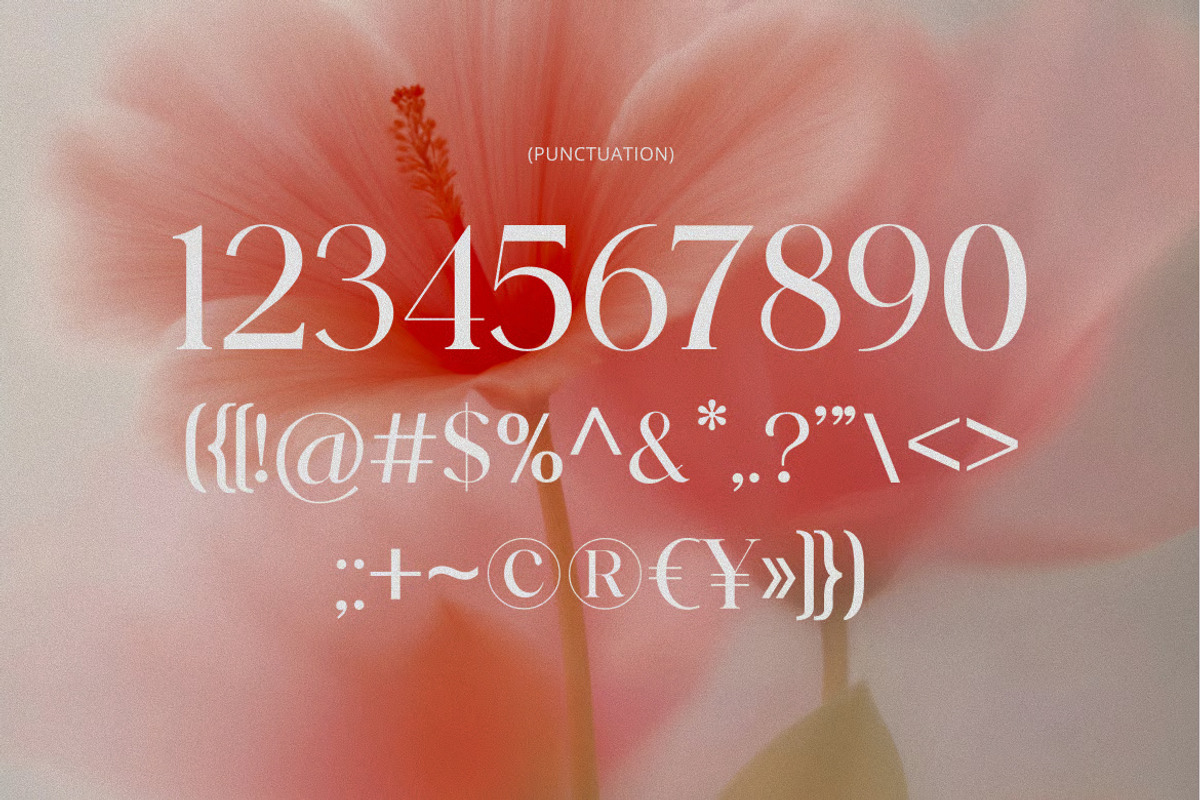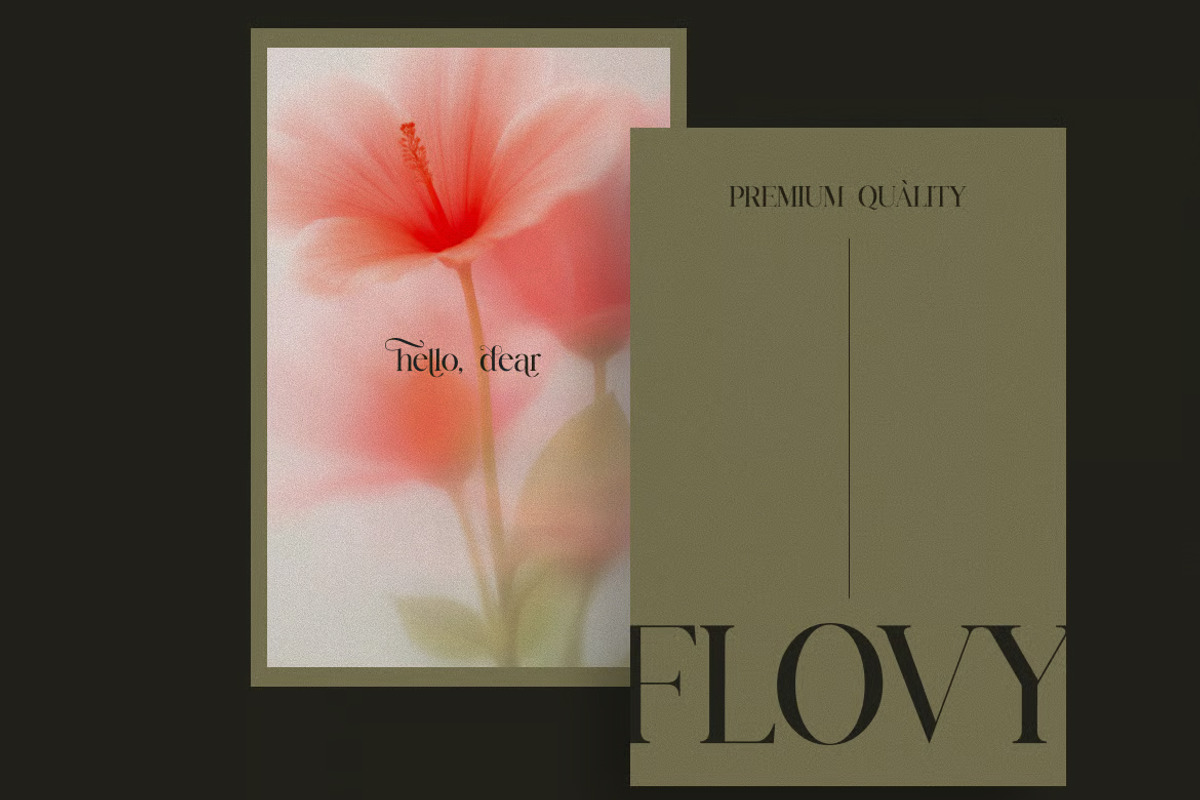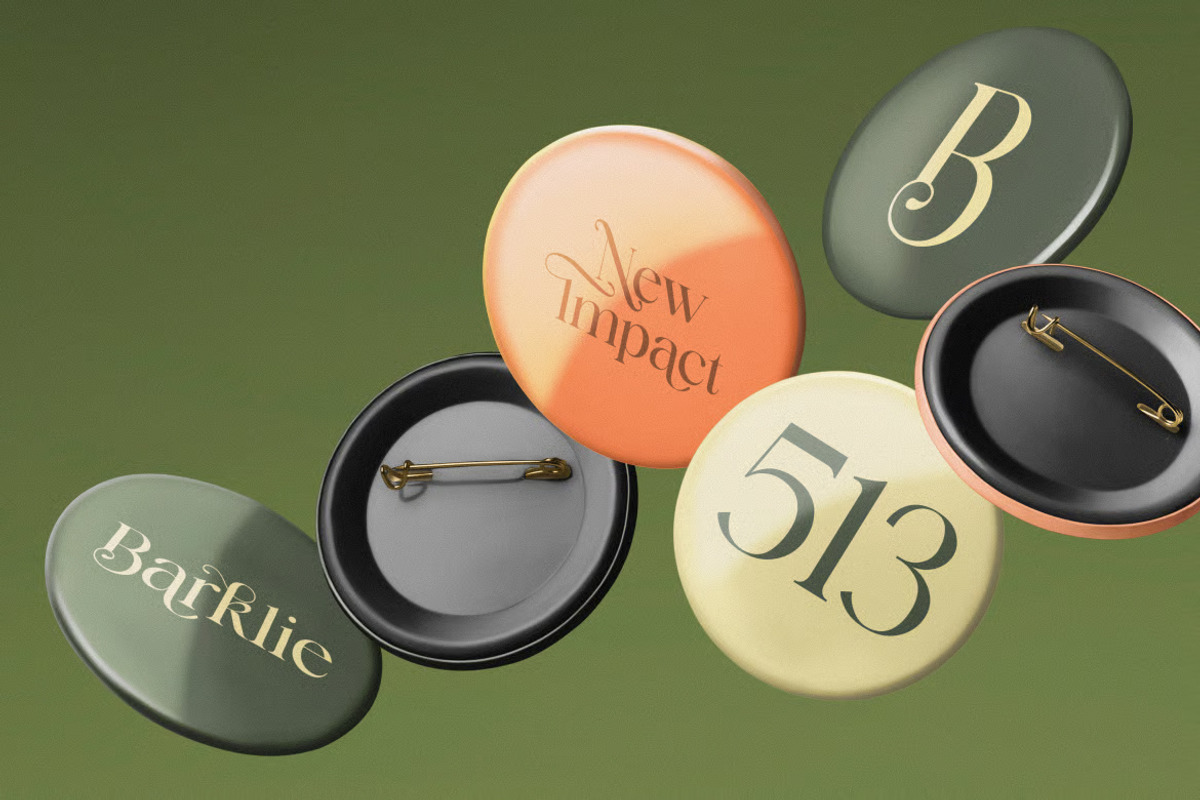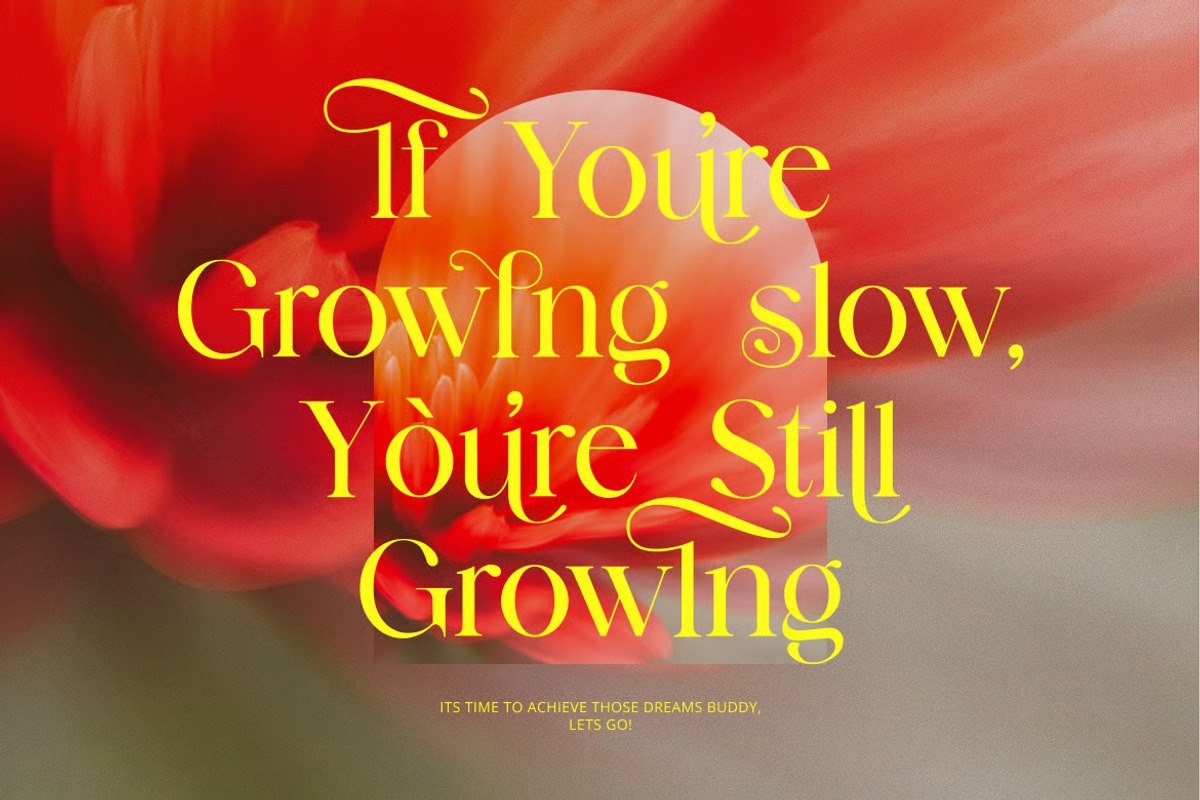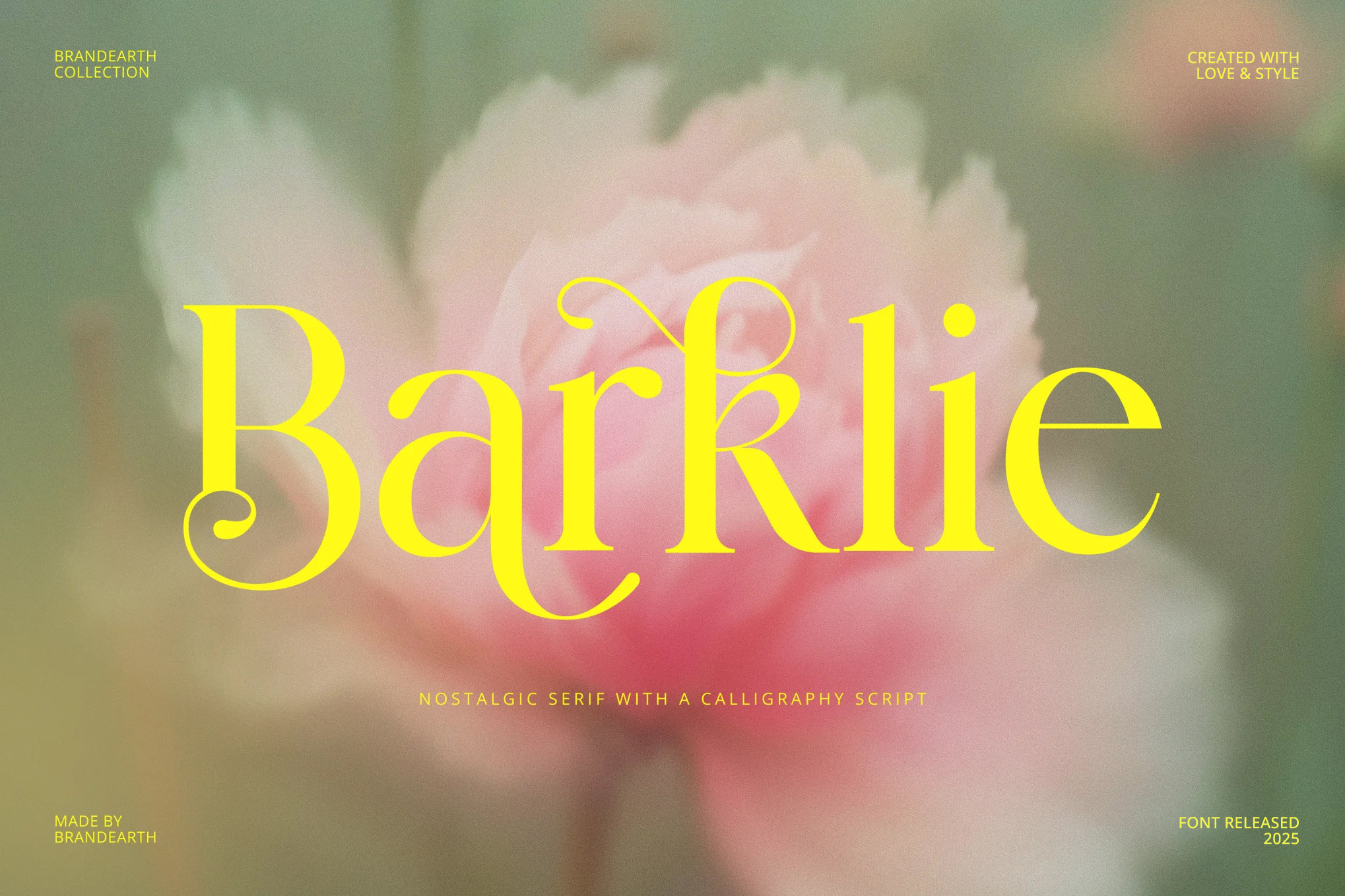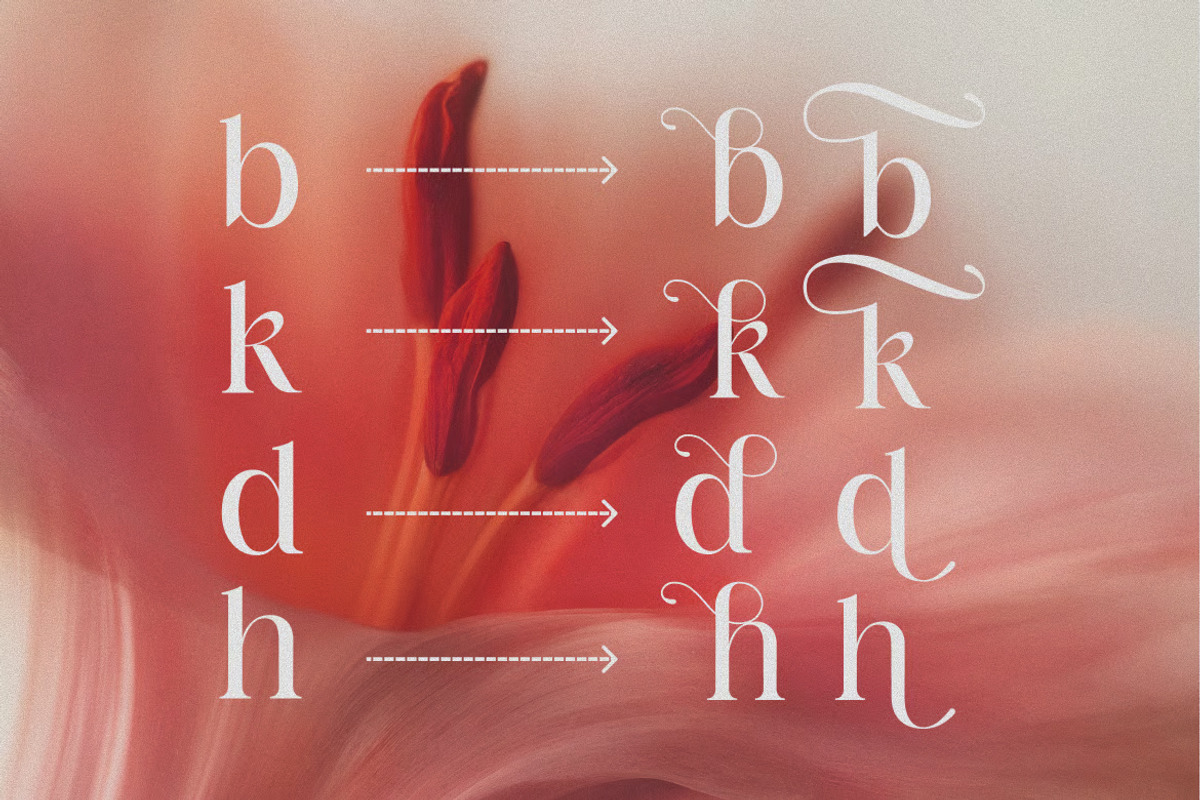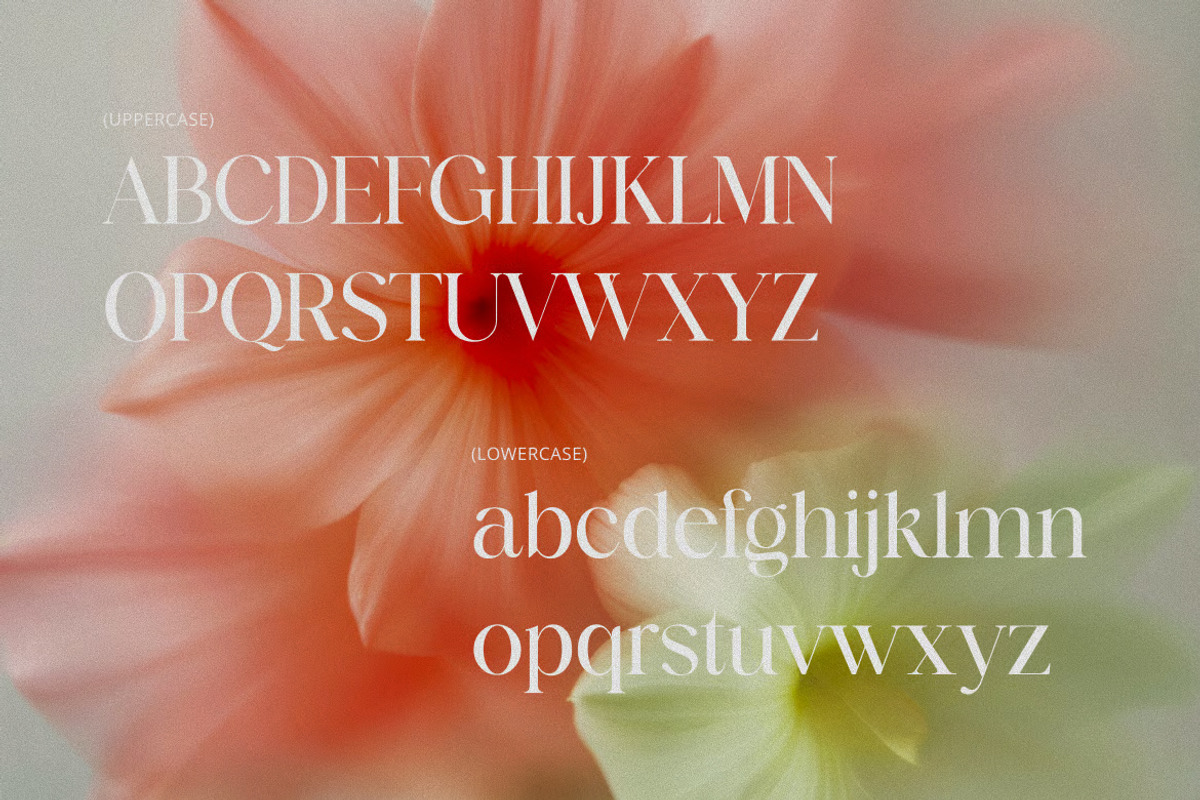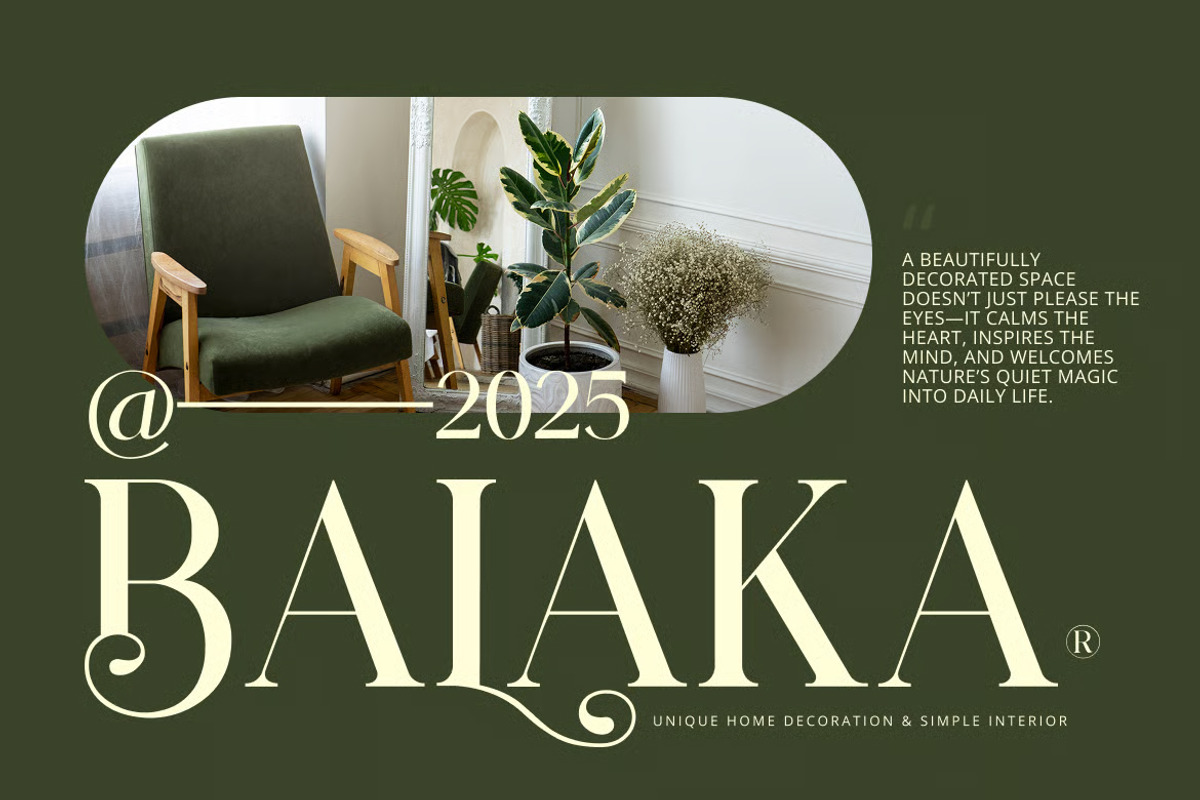
Barklie - A Nostalgic Serif Typeface
Barklie is a nostalgic serif font that blends timeless elegance with subtle calligraphic script accents. Designed to evoke a sense of classic refinement, it captures a graceful sophistication that feels both vintage and contemporary. Its presence is delicate, romantic, and ornamental-inspired—perfect for those looking to elevate their brand with a beautiful yet characterful visual identity.
The letterforms in Barklie are carefully crafted with graceful ligatures, high-contrast strokes, and a flowing rhythm that gives the typeface a classic and refined appearance. It features a serif sophistication paired with ornamental detailing that is perfect for wedding invitations, editorial headlines, luxury brand identity, and fashion magazines.
With its calligraphic accents and timeless structure, Barklie bridges the gap between classic elegance and modern storytelling. It provides a touch of romance while remaining sophisticated and versatile, making it ideal for boutique labels, perfume branding, floral greeting cards, and fine art posters.
Main Features
Ligatures & Alternate
Numeral & Punctuations